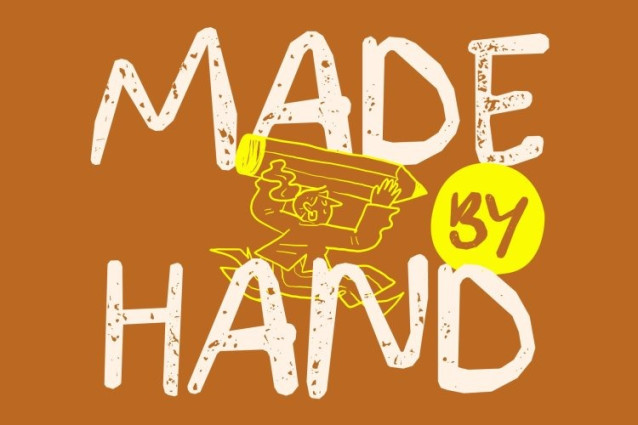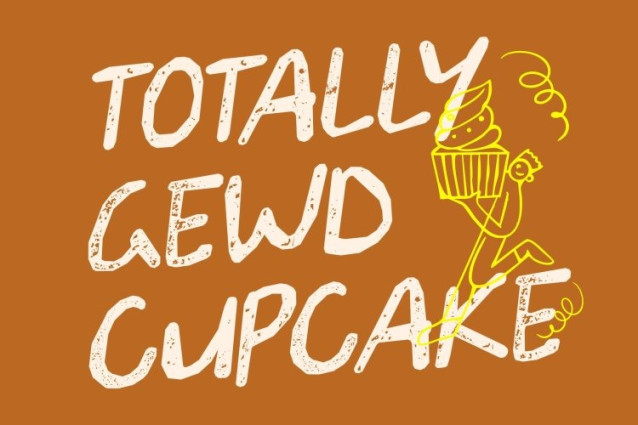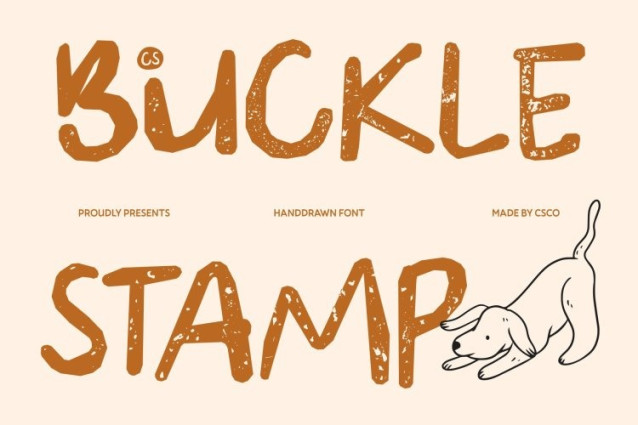
CS Buckle Stamp Font
CS Buckle Stamp Font – This is a “ugly” display font that proudly celebrates imperfection. Built with a sans serif foundation, its irregular strokes and unpolished letterforms create a raw and energetic aesthetic that breaks away from traditional design rules. Enhanced with a stamped texture, the font gains a gritty, handcrafted feel that amplifies its chaotic yet charming personality.
Irregular Forms for Authentic Expression
Each letter in this font carries an unpredictable and expressive character. Uneven lines, unconventional proportions, and spontaneous shapes give the font a distinctive identity that feels human and unapologetically creative. The textured stamp effect further emphasizes its imperfect beauty, reinforcing its raw and authentic visual style.
Playful Energy for Bold Visuals
With its lively rhythm and rough edges, this font injects youthful energy and rebellious spirit into any composition. Its unconventional forms make it perfect for experimental typography, youth-oriented branding, and expressive posters that aim to break the mold and capture attention instantly.
Perfect for Creative and Anti-Mainstream Designs
Ideal for art projects, underground zines, edgy campaigns, and unconventional branding, this font turns imperfection into a powerful visual statement. Its “ugly” aesthetic transforms raw creativity into a distinctive style making every design feel bold, human, and full of playful rebellion.